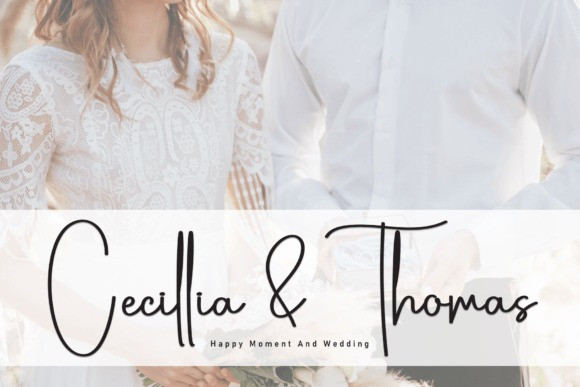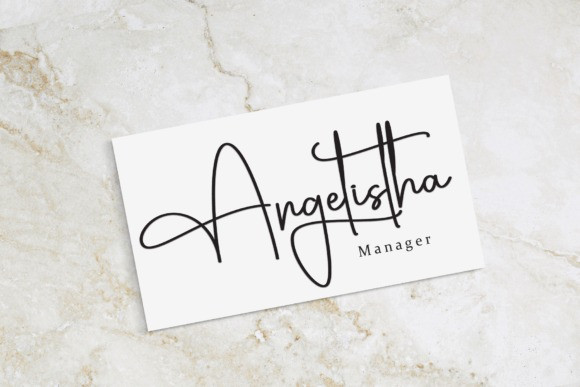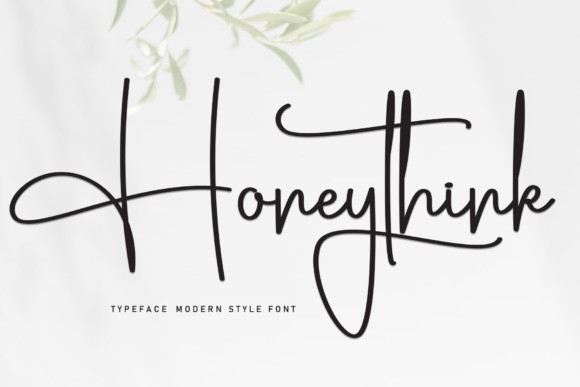
Honeythink Script Font
Honeythink Script Font is a lovely and timeless handwritten font. It is the best choice for creating eye catching logos, branding and quotes. Every letter has a unique and beautiful touch, which will make your design come alive!